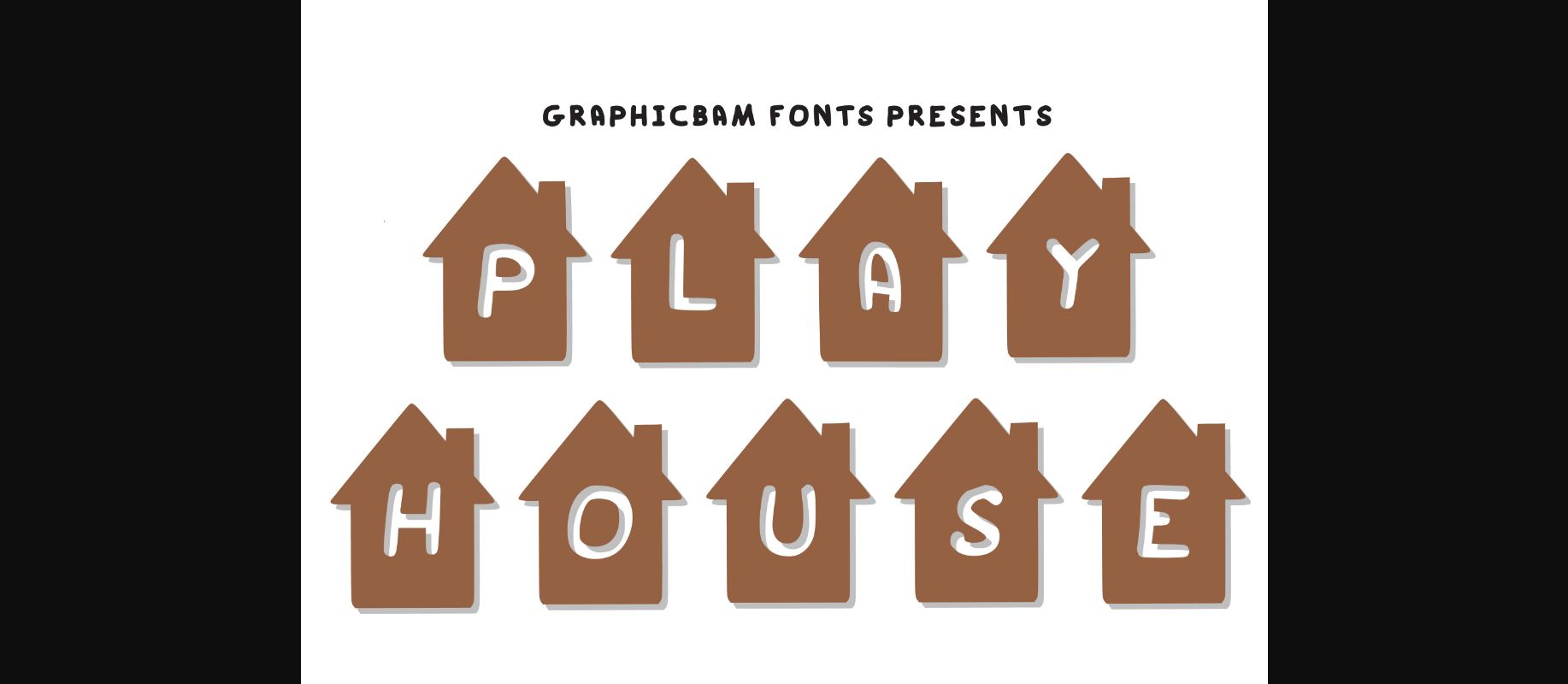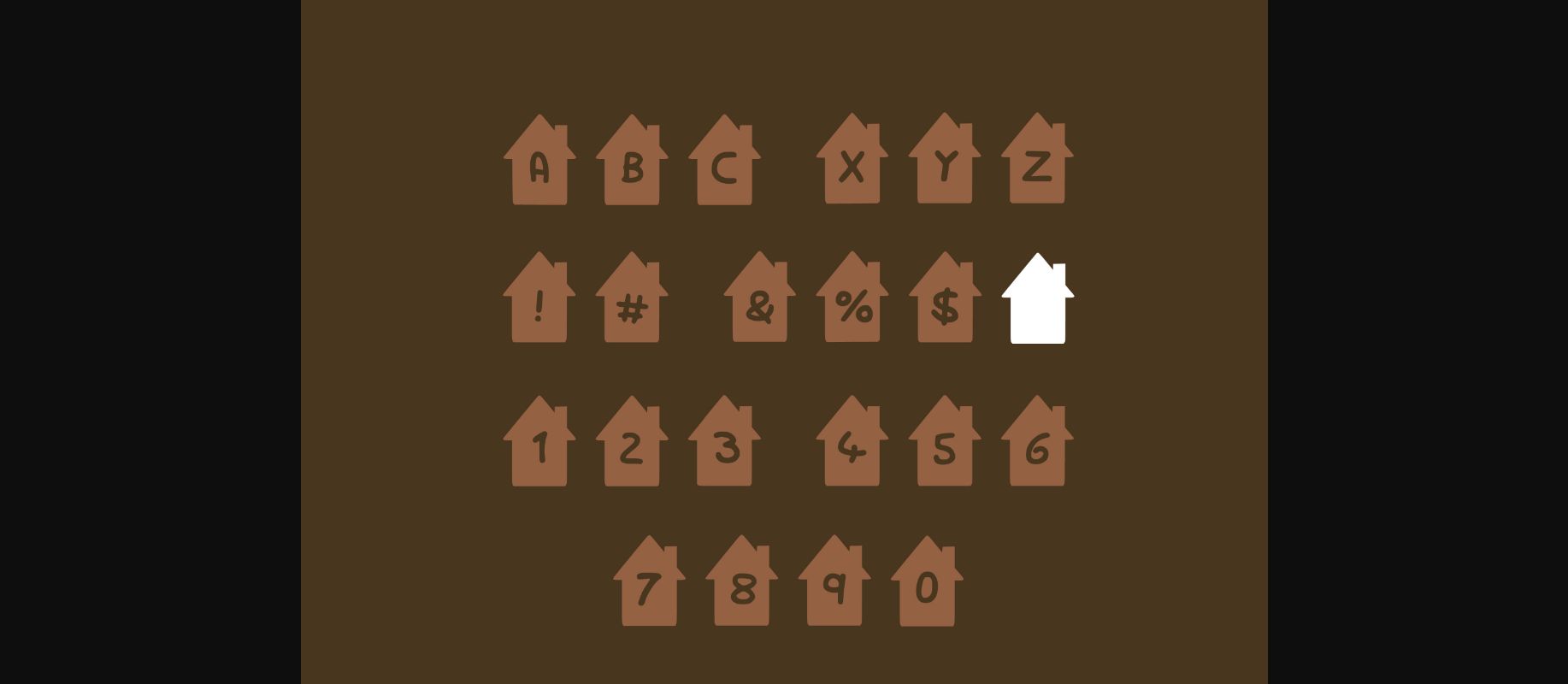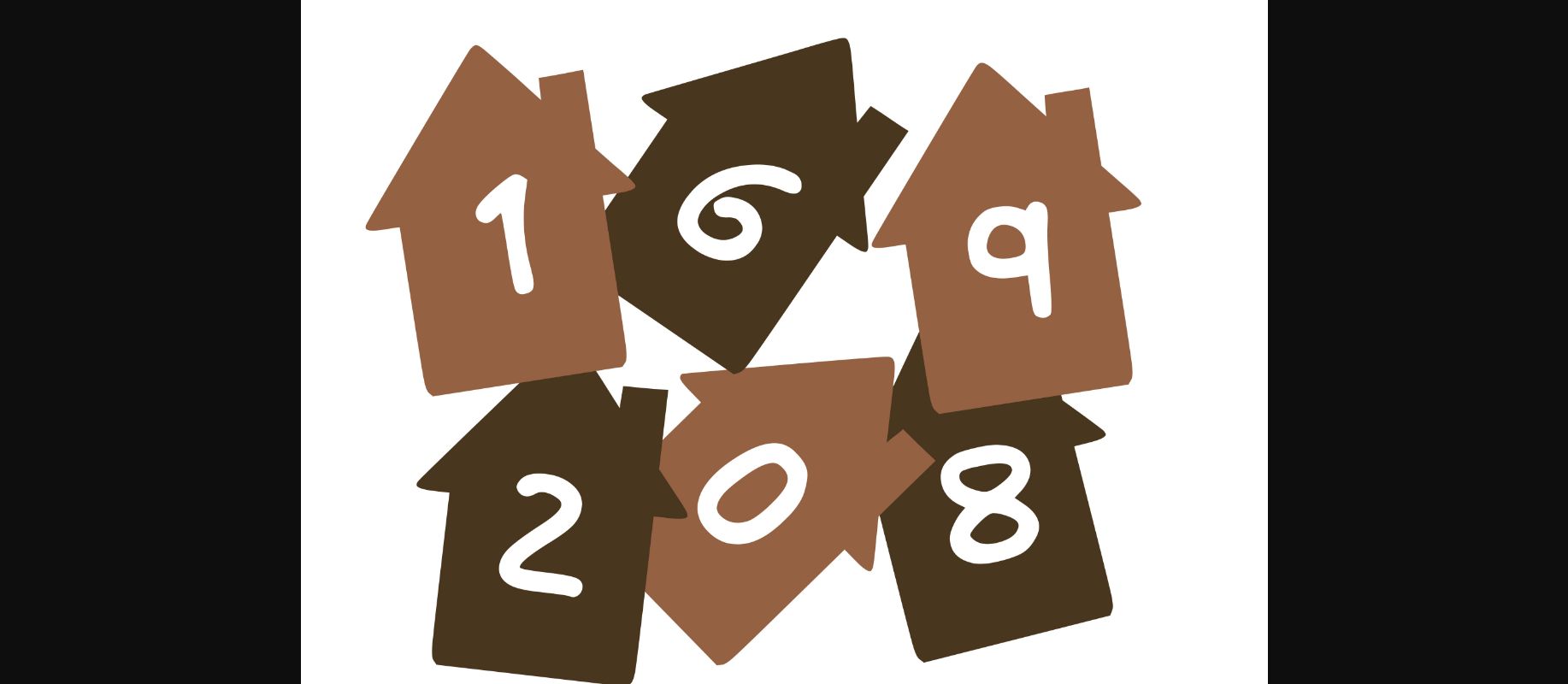
About Play House Font
Play House is a set of silhouette homes with a playful, child-like decorative font perfect to spell out anything to do with our favorite place, home! Handwritten with rounded sides make it a friendly and joyful font. Great for schools, home teaching, or a craft project.